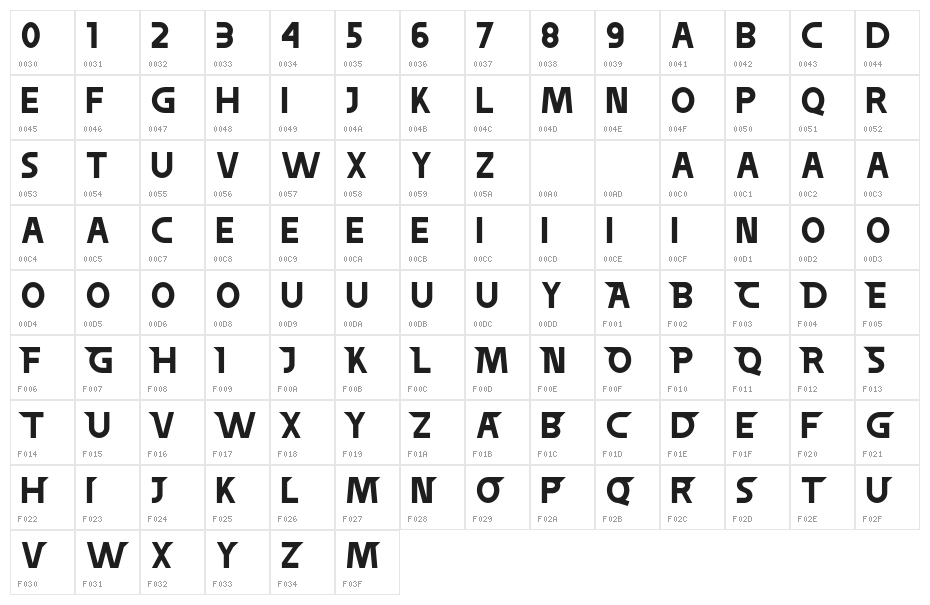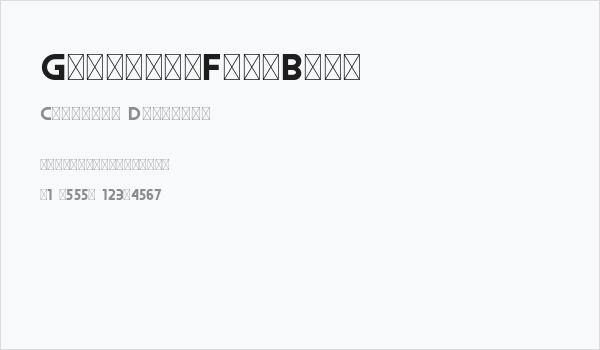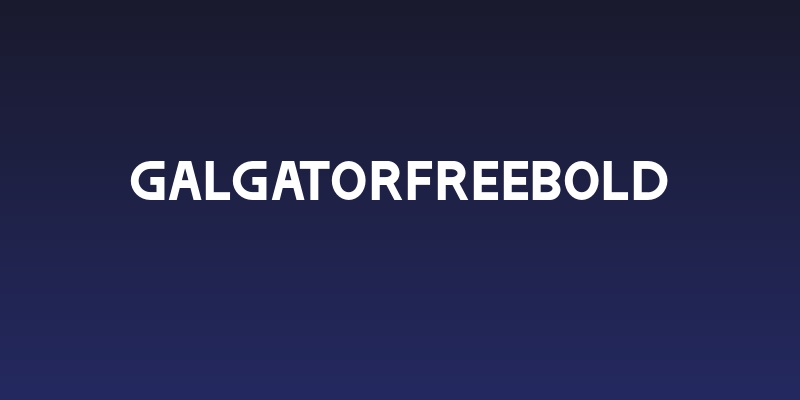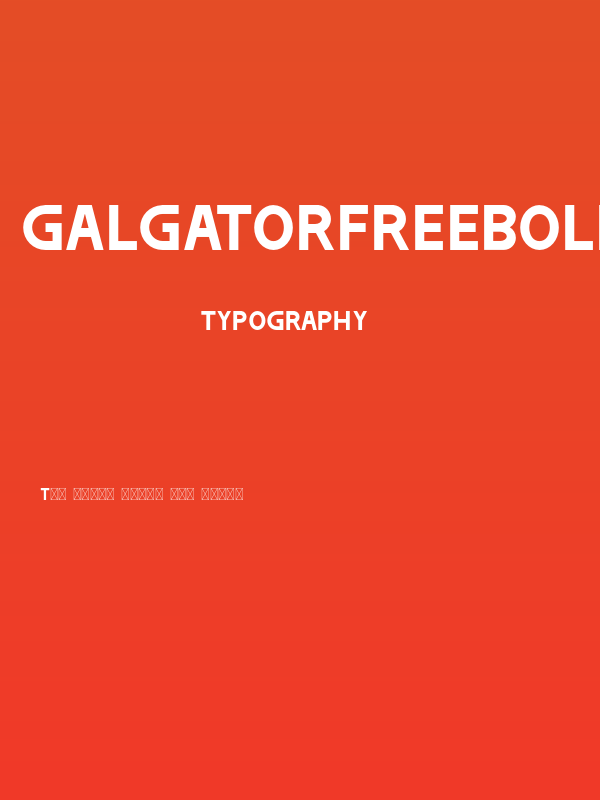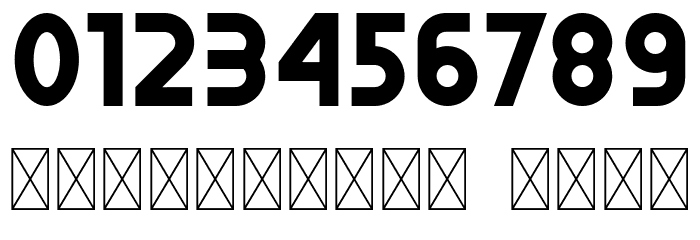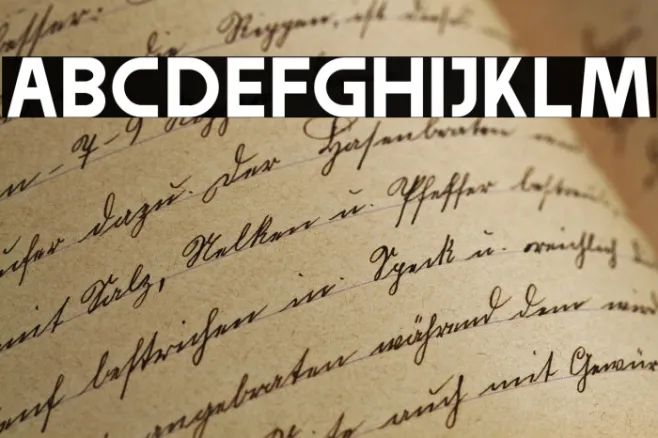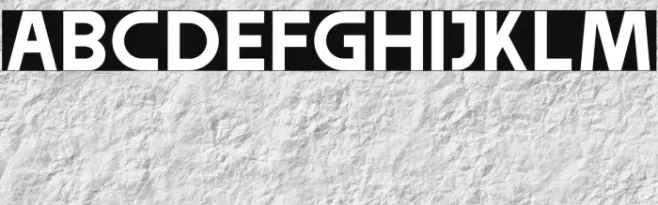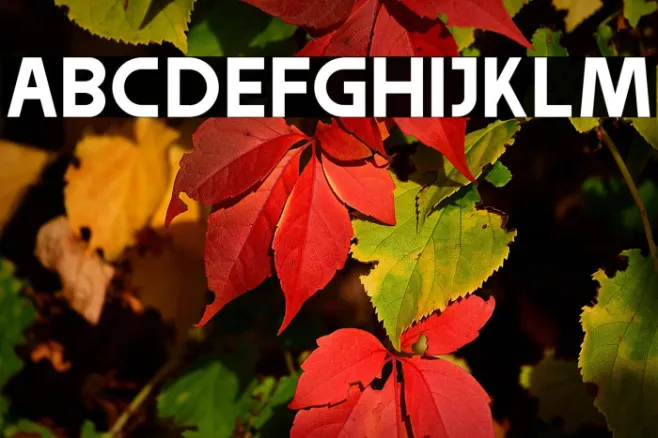
GalgatorFreeBold Font
GalgatorFreeBold Description
This font exhibits a bold and modern sans-serif style, characterized by clean lines and a strong geometric structure. The uppercase letters are uniform in height, providing a consistent and balanced appearance. The numerals are equally bold, ensuring readability and impact. The absence of serifs gives it a contemporary feel, making it suitable for various digital and print applications. The font's bold weight enhances its visibility, making it ideal for headlines and titles. The spacing between characters is normal, allowing for clear legibility without appearing cramped.
| Use Case | Headlines, Logos, Digital Media |
| Proposed Projects | Ideal for branding, advertising, headlines, and digital media where a modern and impactful look is desired. |